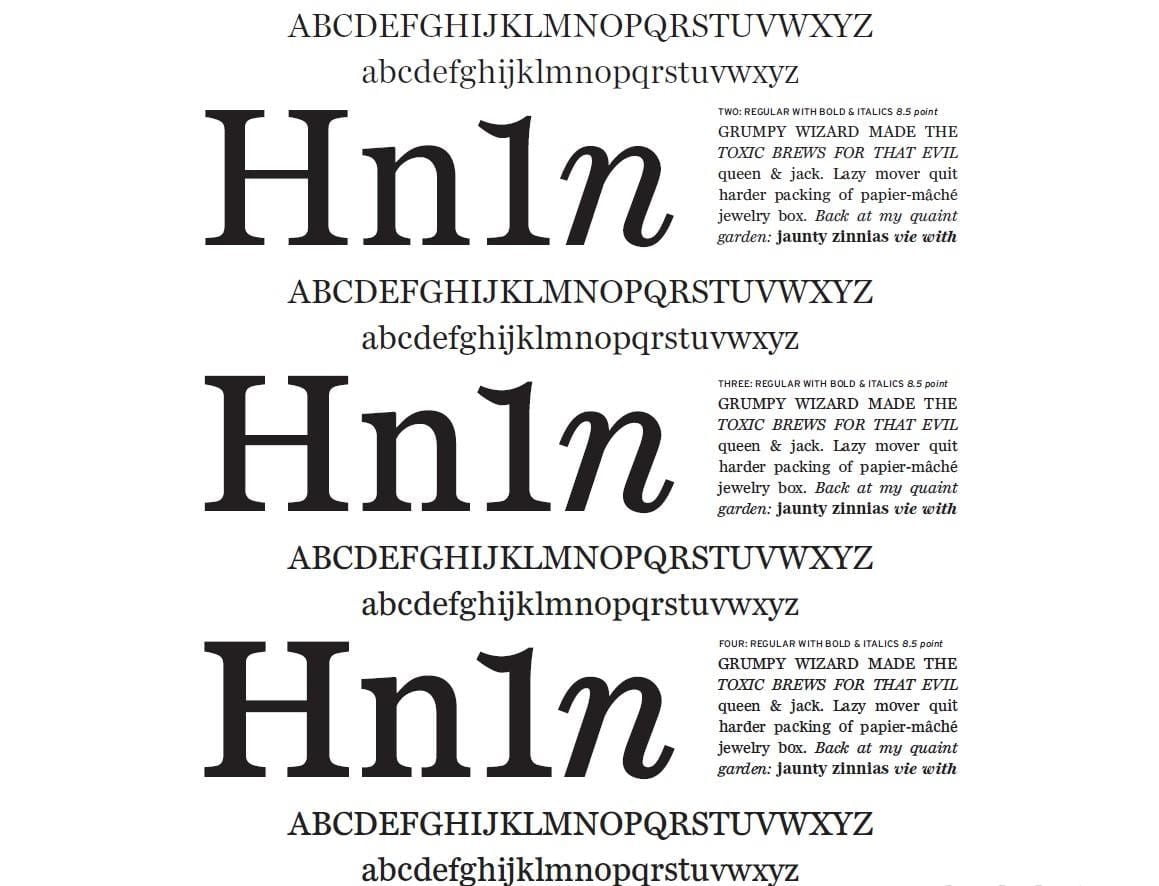
Miller Daily Font
Miller Daily Font - Web miller daily · carter & cone · fonts · type network. Sphinx of black quartz, judge my vow. Web miller is a transitional serif typeface family designed by matthew carter and released through font bureau in 1997. Web miller · carter & cone · fonts · type network. Web orders your fonts web projects saved carts favorites. Web miller · font bureau · fonts · type network.
Web miller · font bureau · fonts · type network. Web miller daily · carter & cone · fonts · type network. Sphinx of black quartz, judge my vow. Web miller is a transitional serif typeface family designed by matthew carter and released through font bureau in 1997. Web miller · carter & cone · fonts · type network. Web orders your fonts web projects saved carts favorites.
Sphinx of black quartz, judge my vow. Web miller is a transitional serif typeface family designed by matthew carter and released through font bureau in 1997. Web miller · font bureau · fonts · type network. Web miller daily · carter & cone · fonts · type network. Web miller · carter & cone · fonts · type network. Web orders your fonts web projects saved carts favorites.
Web miller daily · carter & cone · fonts · type network. Web miller · carter & cone · fonts · type network. Web miller is a transitional serif typeface family designed by matthew carter and released through font bureau in 1997. Web miller · font bureau · fonts · type network. Web orders your fonts web projects saved carts.
Sphinx of black quartz, judge my vow. Web miller daily · carter & cone · fonts · type network. Web miller · font bureau · fonts · type network. Web orders your fonts web projects saved carts favorites. Web miller is a transitional serif typeface family designed by matthew carter and released through font bureau in 1997.
Web orders your fonts web projects saved carts favorites. Web miller · font bureau · fonts · type network. Web miller · carter & cone · fonts · type network. Web miller is a transitional serif typeface family designed by matthew carter and released through font bureau in 1997. Sphinx of black quartz, judge my vow.
Web miller daily · carter & cone · fonts · type network. Web orders your fonts web projects saved carts favorites. Web miller is a transitional serif typeface family designed by matthew carter and released through font bureau in 1997. Web miller · carter & cone · fonts · type network. Web miller · font bureau · fonts · type.
Web miller · font bureau · fonts · type network. Web miller daily · carter & cone · fonts · type network. Web miller is a transitional serif typeface family designed by matthew carter and released through font bureau in 1997. Web miller · carter & cone · fonts · type network. Web orders your fonts web projects saved carts.
Web orders your fonts web projects saved carts favorites. Web miller is a transitional serif typeface family designed by matthew carter and released through font bureau in 1997. Sphinx of black quartz, judge my vow. Web miller · carter & cone · fonts · type network. Web miller · font bureau · fonts · type network.
Web orders your fonts web projects saved carts favorites. Web miller daily · carter & cone · fonts · type network. Web miller · font bureau · fonts · type network. Sphinx of black quartz, judge my vow. Web miller is a transitional serif typeface family designed by matthew carter and released through font bureau in 1997.